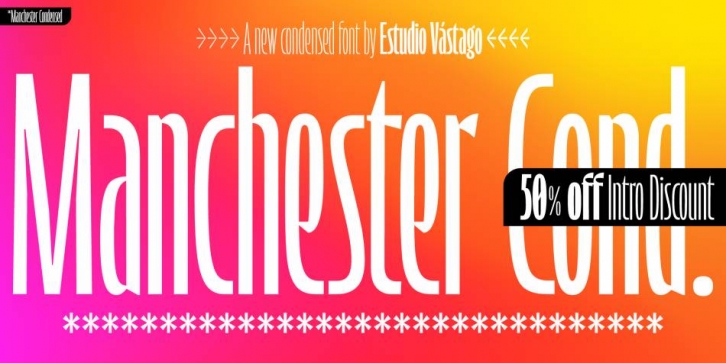
Manchester Condensed is a display sans and sans serif font family. This typeface has seven styles and was published by Estudio Vástago.
Every day we are faced with designing on small screens and new formats; This is where condensed fonts have great potential, as they make the most of tight spaces in big headlines. Manchester Condensed is a typeface family designed by Vástago to be applied in large headlines in different formats, such as web, editorial or packaging. Just to mention a few.
Different Manchester weights enhance performance at large type sizes, providing hierarchy and imposing style with its elongated shapes. Its use in capital letters is remarkable and fits perfectly into very precise diagramming spaces.
Manchester Condensed Thin·
Manchester Condensed Light·
Manchester Condensed Regular·
Manchester Condensed Bold·
Manchester Condensed Extra Bold·
Manchester Condensed Black·